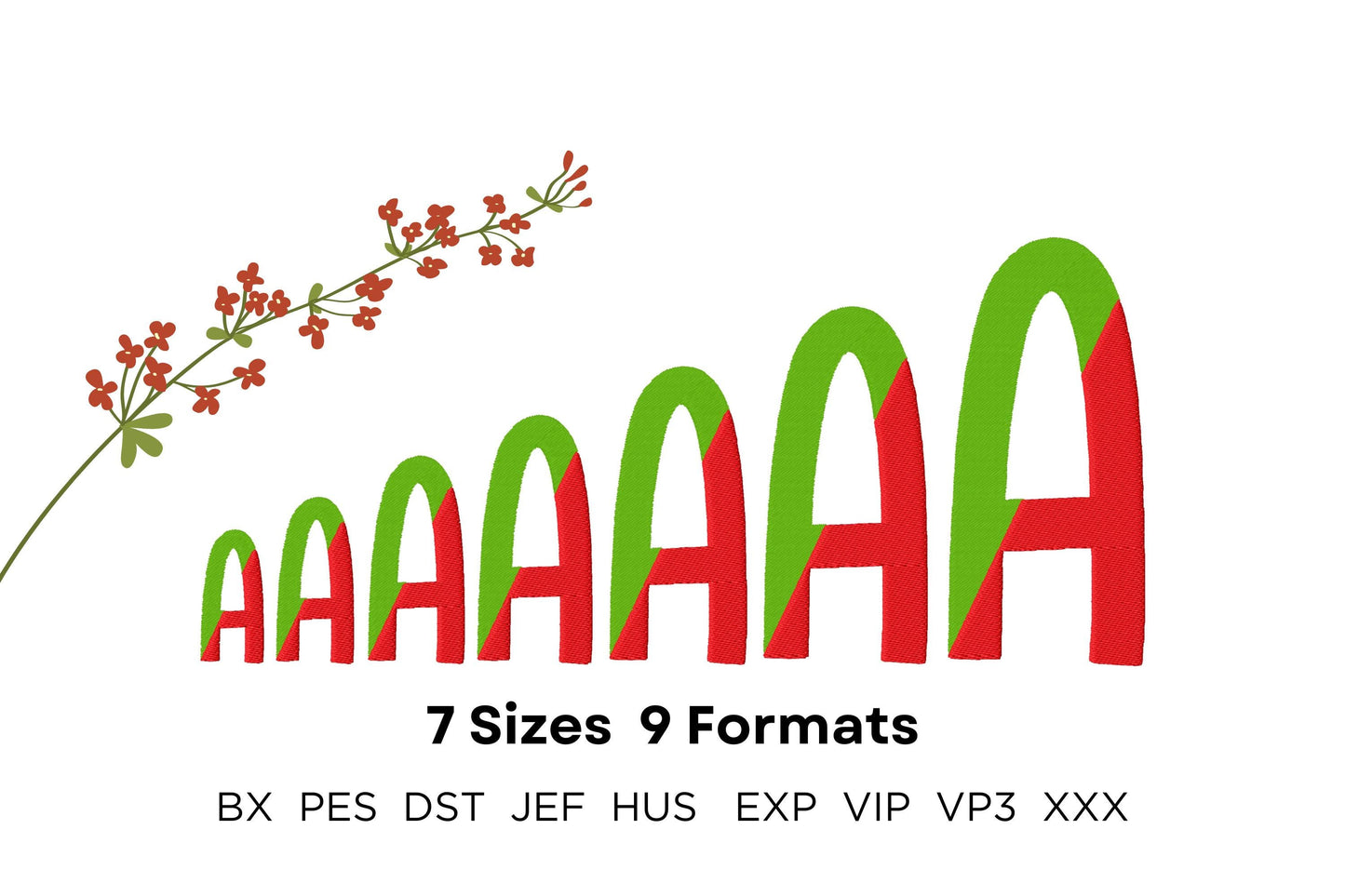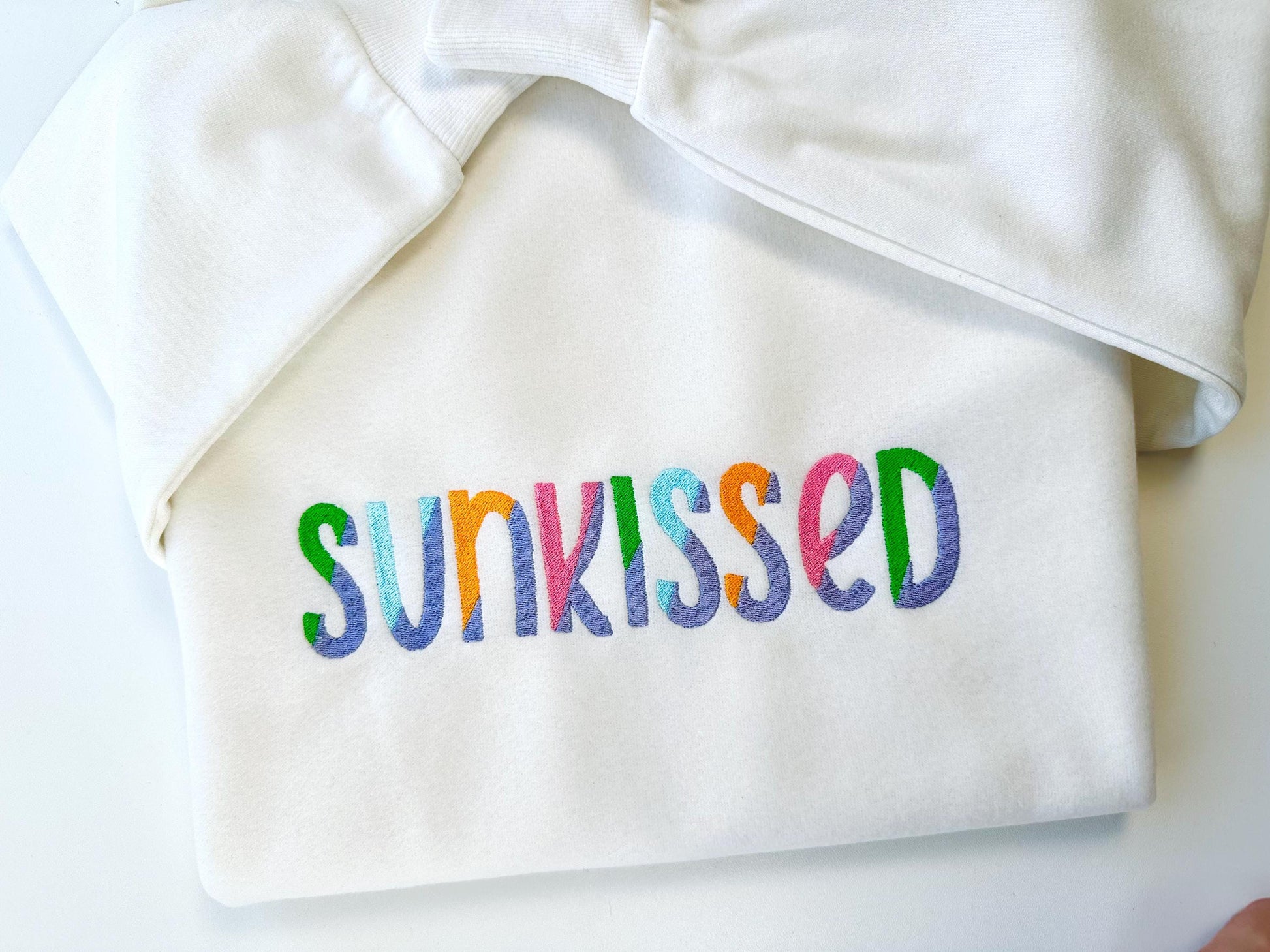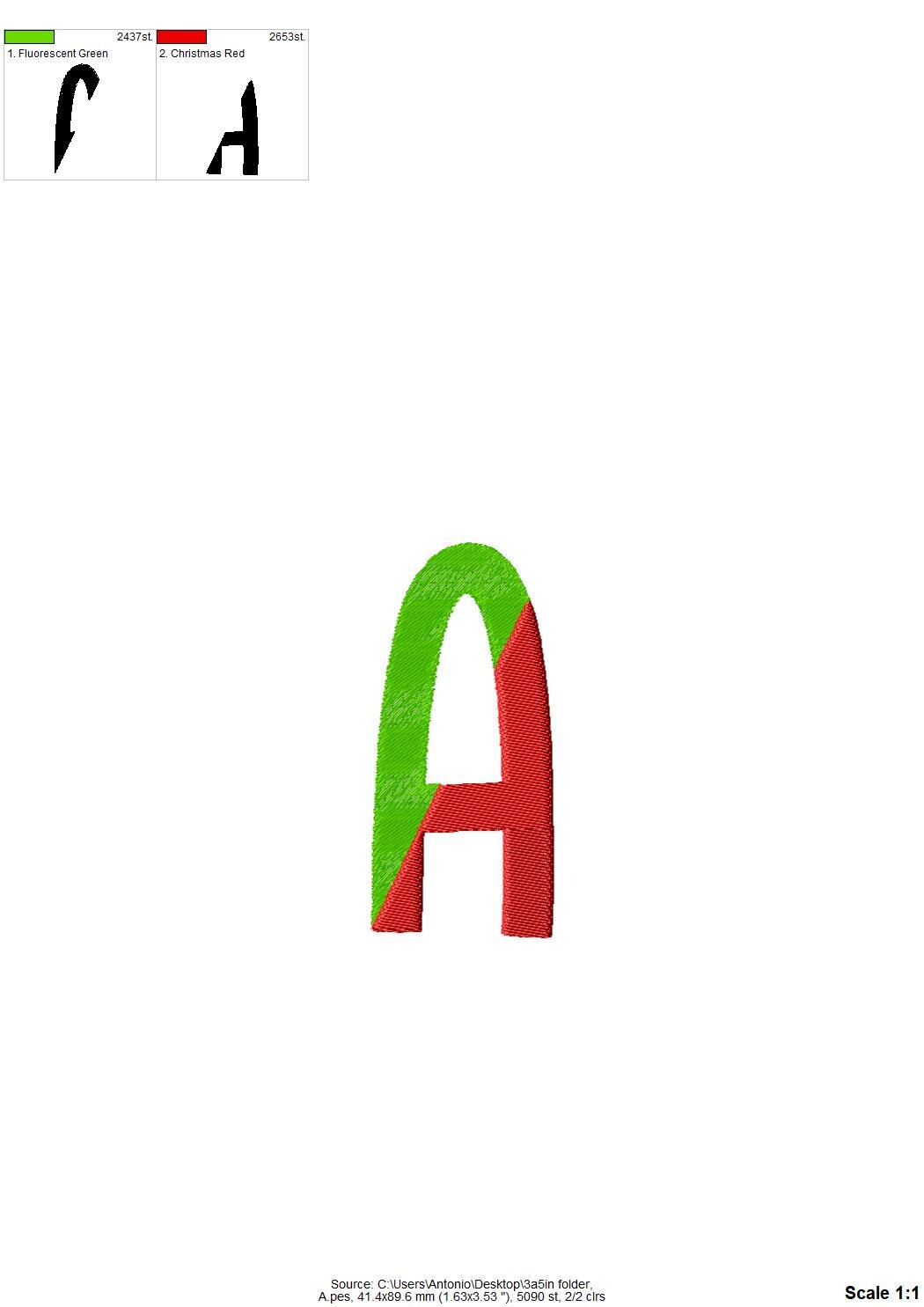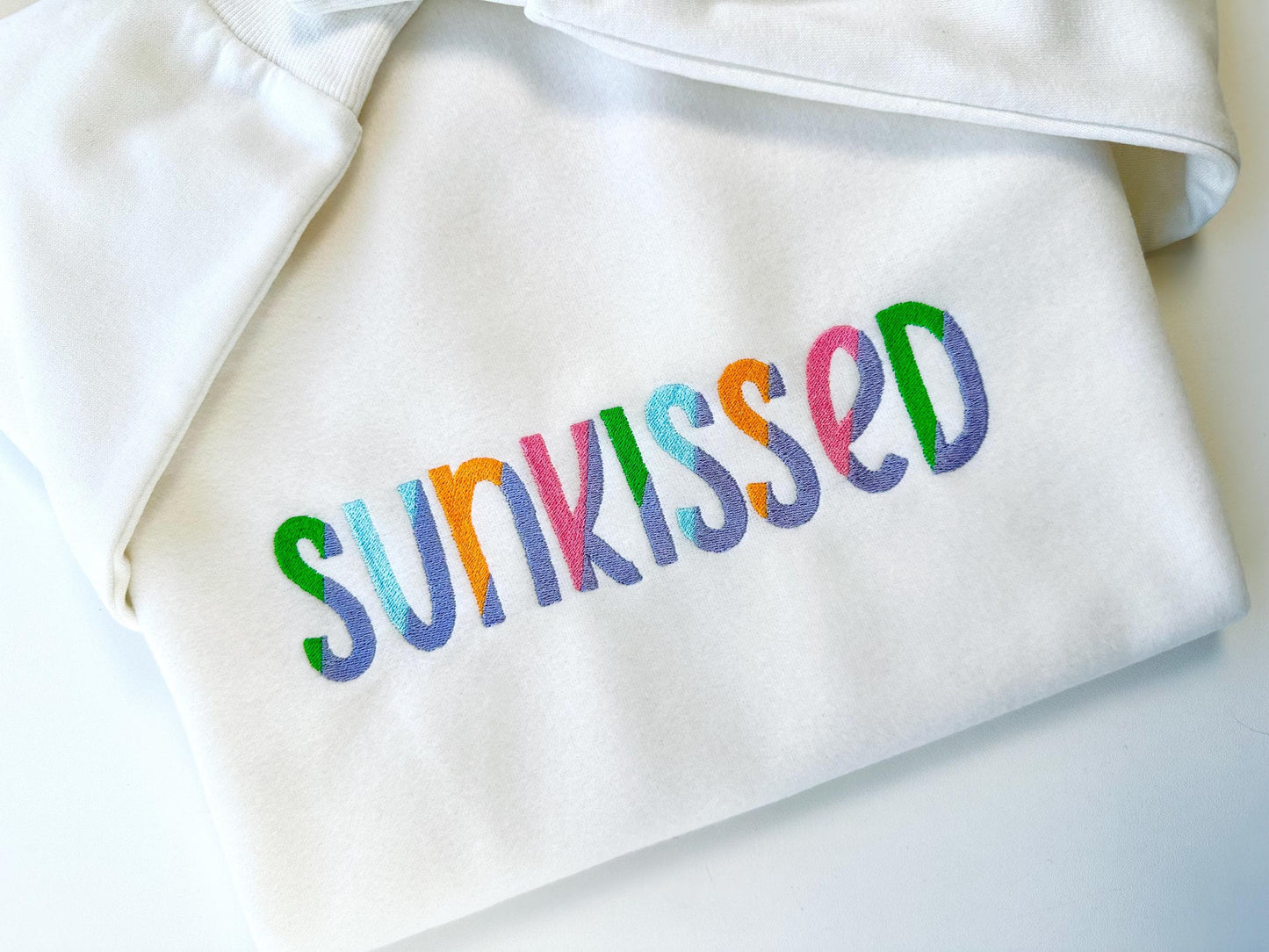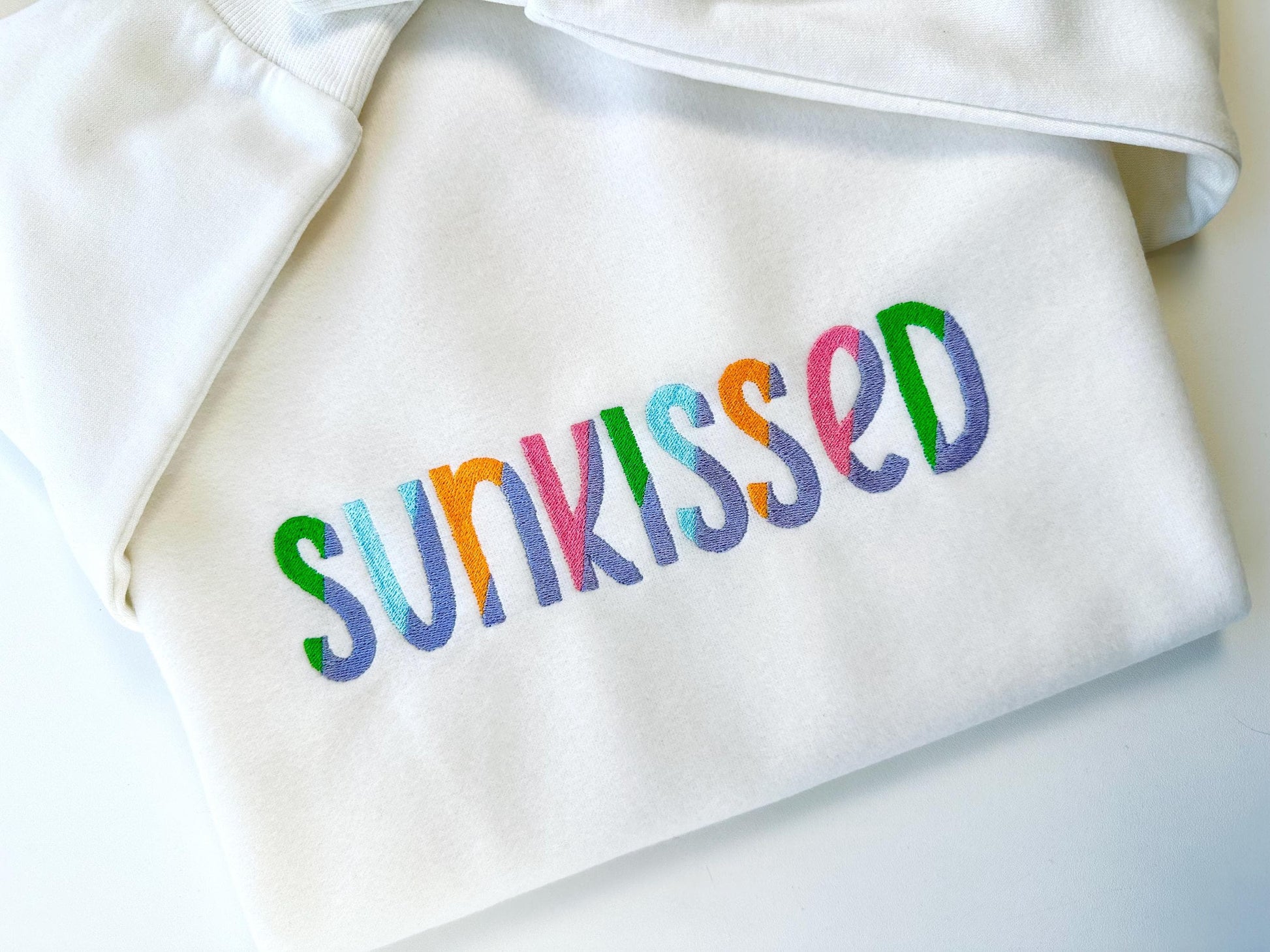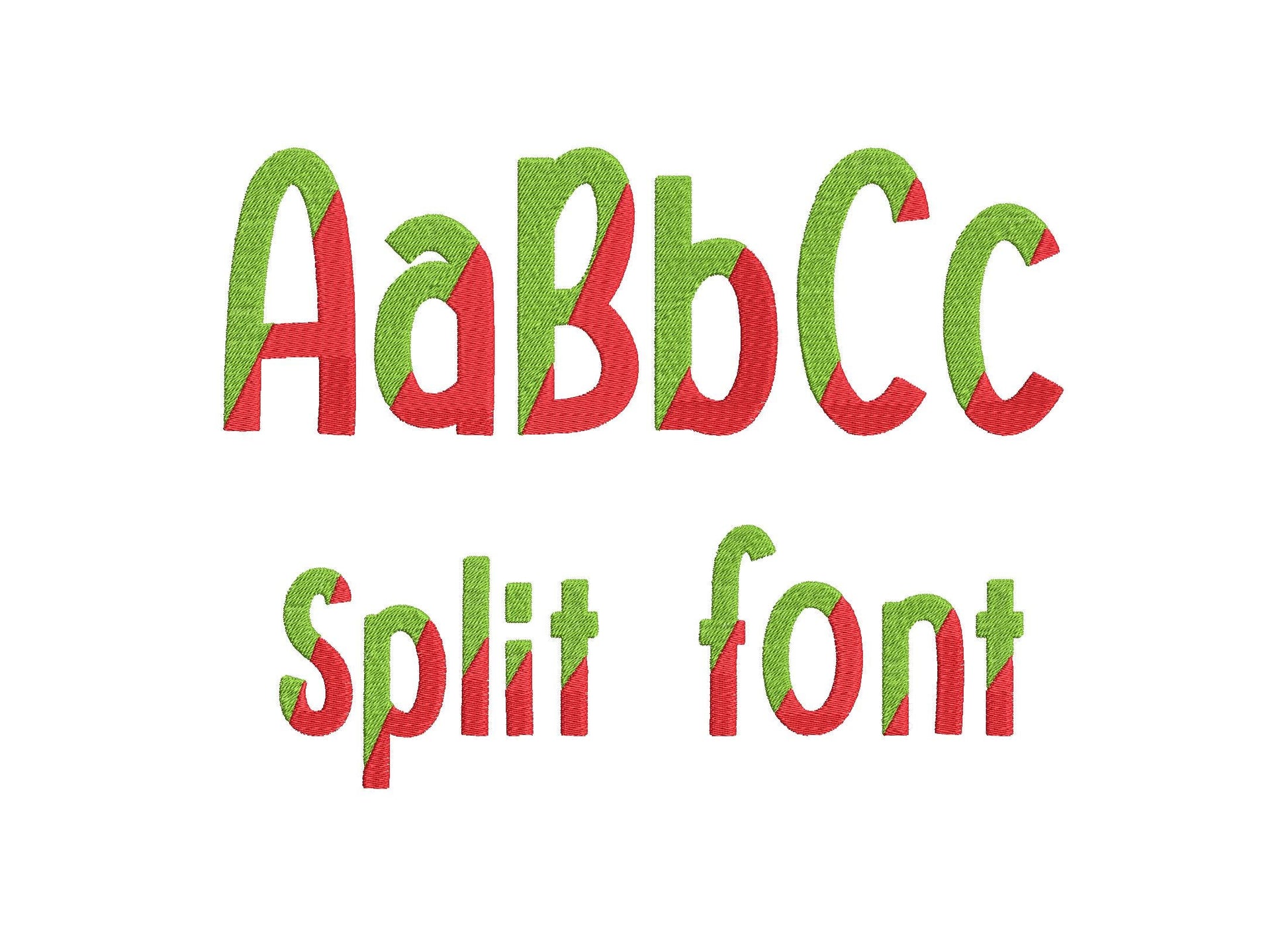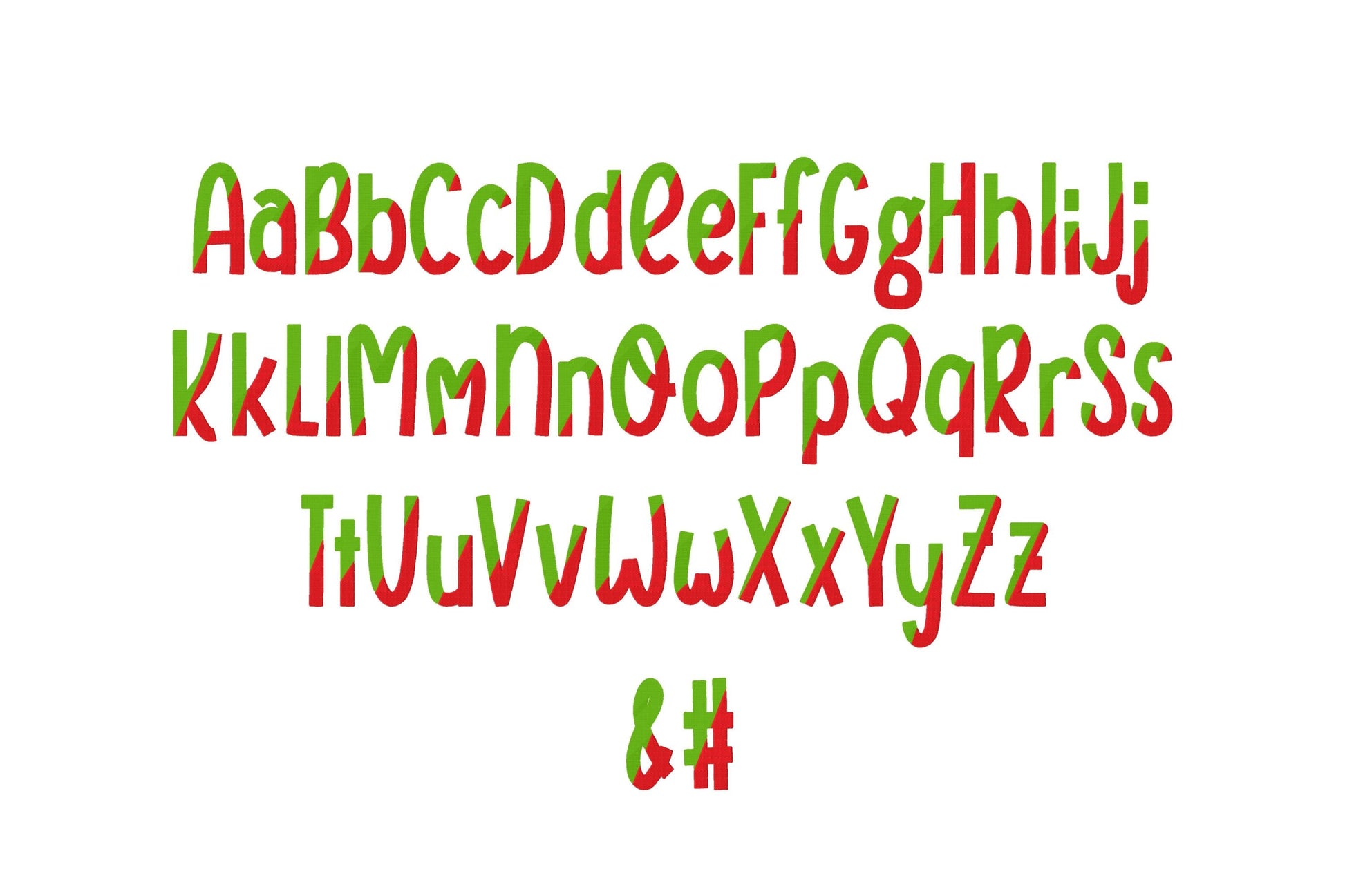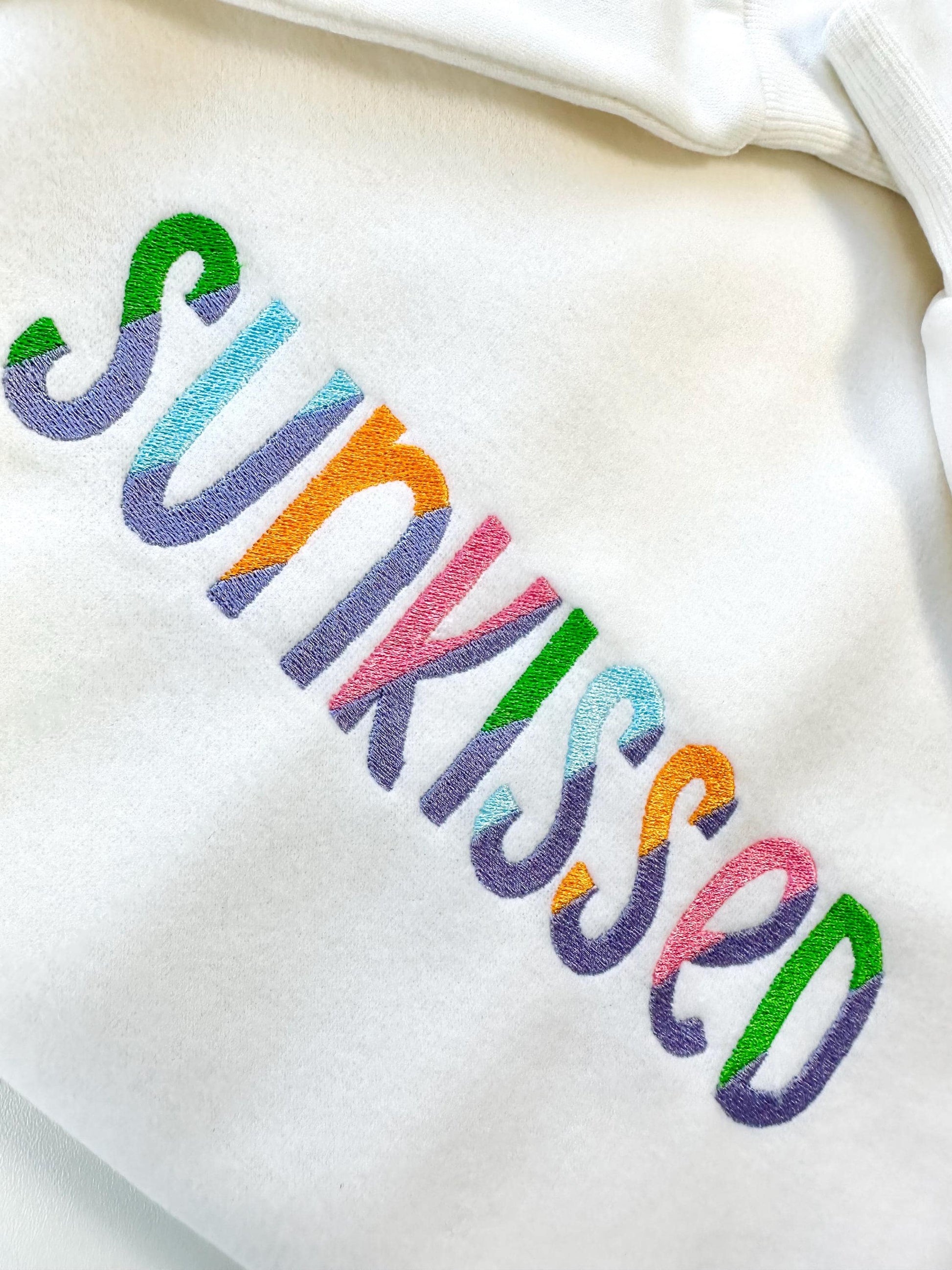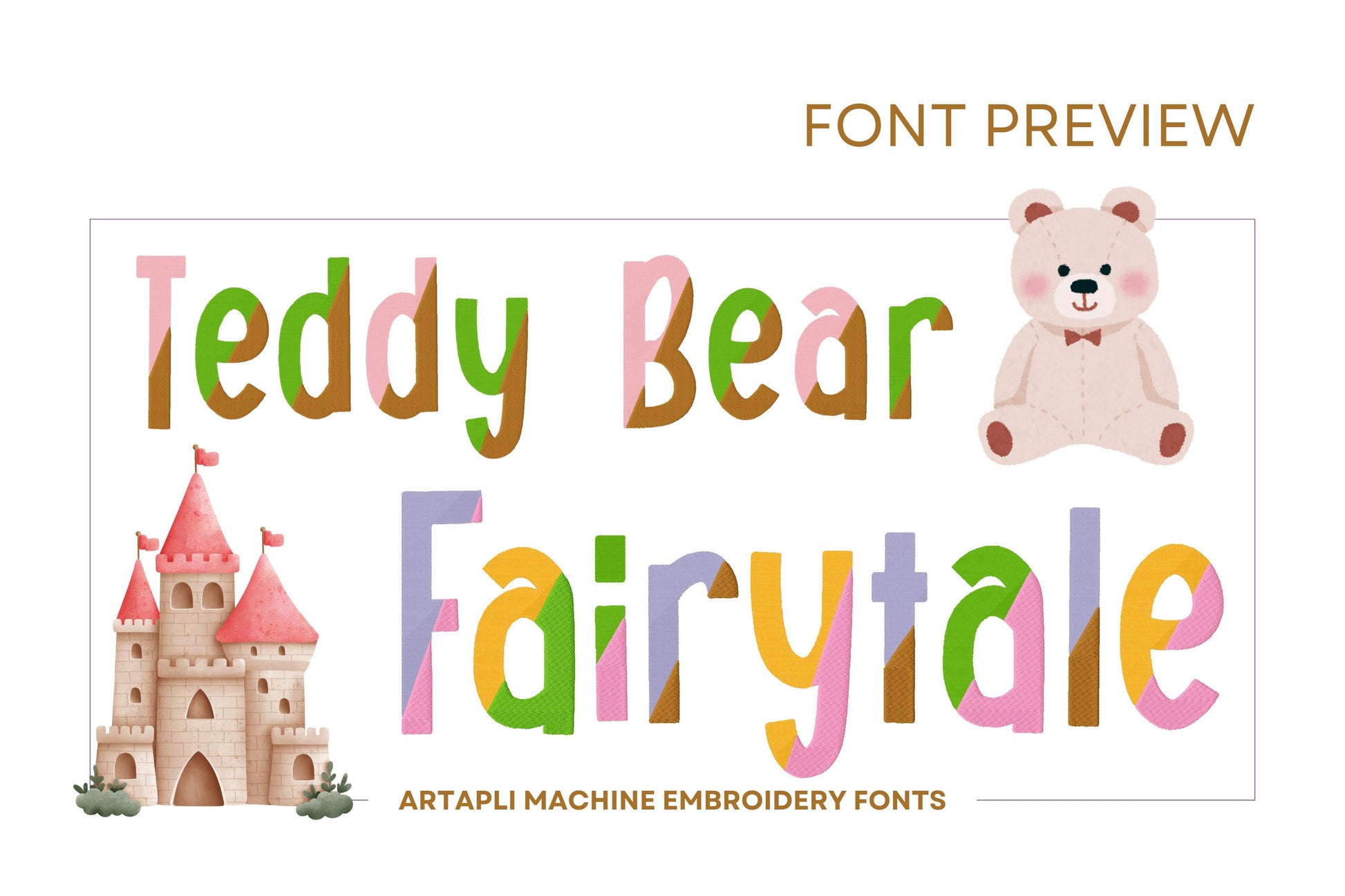
Or click to open the linkA bold split font in fill stitch, with each letter divided in the middle. Fun for kids' names, monograms, shirts and bags.
Uppercase and lowercase letters, numbers 0 to 9, an ampersand and a hash sign. Seven sizes: 1.6, 2, 2.5, 3, 3.5, 4.2 and 5 inches.